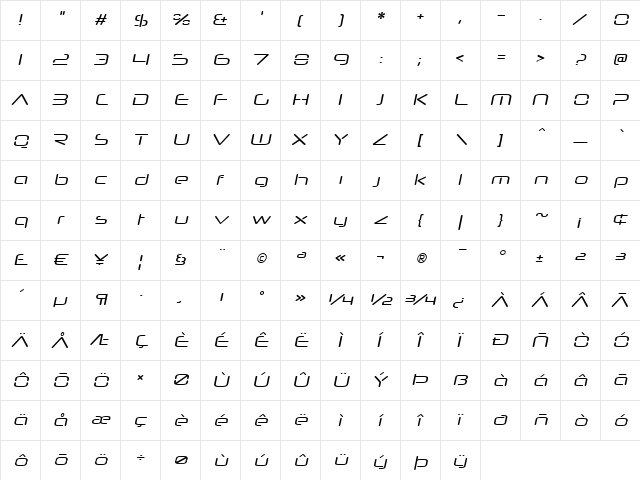
Neuropol Nova Xp Italic
Design Context for Neuropol Nova Xp Typeface
Neuropol Nova Xp is a composed and adaptable typeface that performs quietly and consistently across a wide range of design contexts. The dynamic lean of this cut emphasises speed and emphasis in any layout.
Pro Tip: Try Neuropol Nova Xp for annotation and caption copy alongside an upright companion — the contrast in angle creates a dynamic but ordered typographic system.